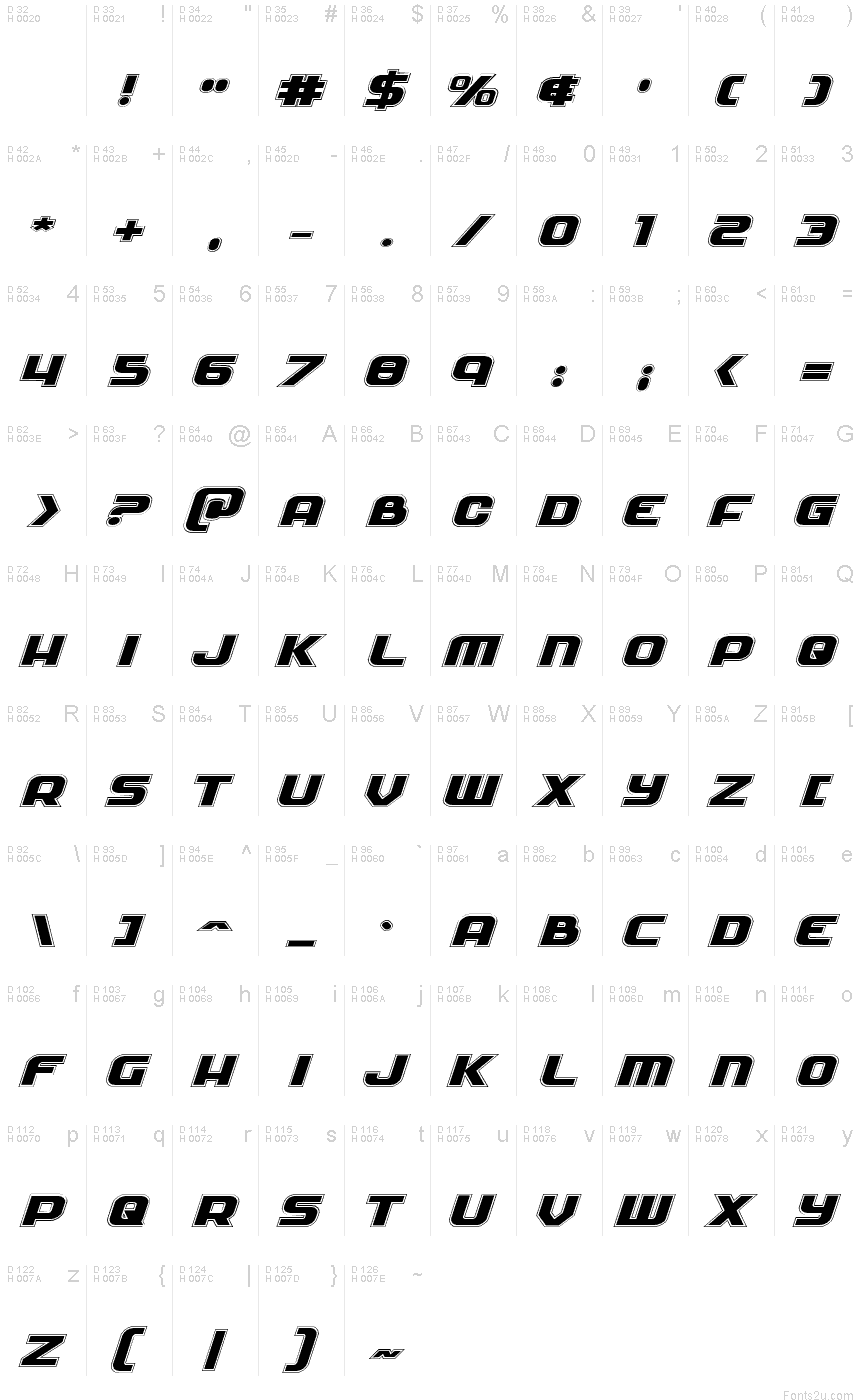
Soldier Academy Expanded Italic by Daniel Zadorozny of Iconian Fonts is a free outlined techno display font with a broad forward slant and the speed of motorsport lettering. Its low, wide capitals combine rounded outer contours with sharp inner cuts and tightly fitted joins.
A racing team, gaming brand, or performance parts label could use its streamlined shape for logos, posters, packaging, and merchandise. The double-line treatment and forceful lean turn the lettering into a custom vehicle badge, a useful branding device across a coordinated product line.
Soldier Academy Expanded Italic